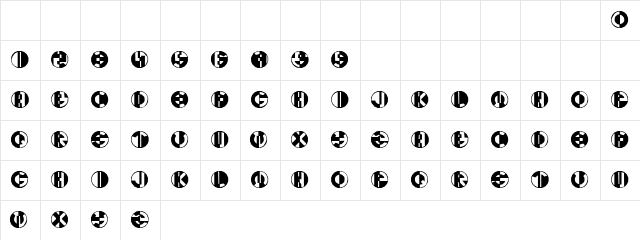
Bracken Dion Regular
Design Context for Bracken Dion Typeface
Bracken Dion is a composed and adaptable typeface that performs quietly and consistently across a wide range of design contexts.